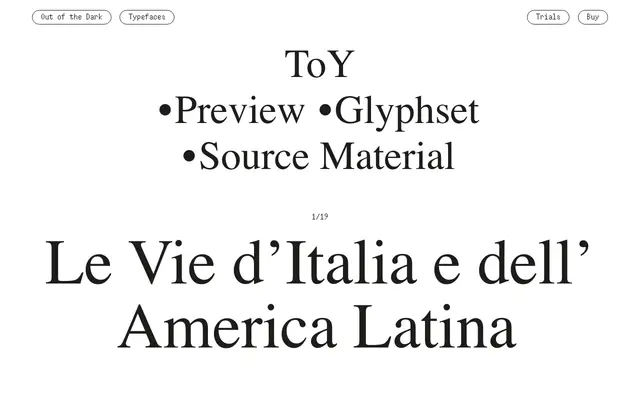
A single-style experimental display face from Swiss foundry Out of the Dark, released as a standalone cut with no weight or width variants.
Out of the Dark position ToY as a self-contained display typeface with just one style, keeping it focused and deliberately limited in scope. The foundry, based in Switzerland, is known for expressive and unconventional type design, and ToY sits within that catalogue of experimental releases. Its reference material draws from archival printed matter, suggesting a retro or vernacular source influence.
The minimal page content and foundry context suggest a highly stylised, experimental display face; Out of the Dark specialises in expressive, unconventional type and ToY fits that pattern with a single style offering.